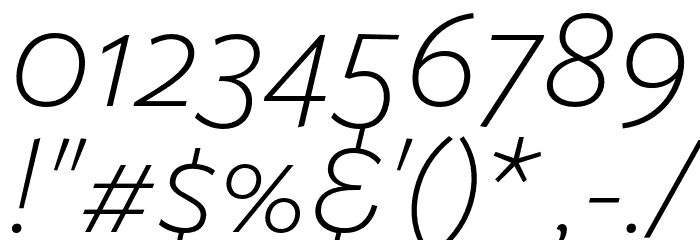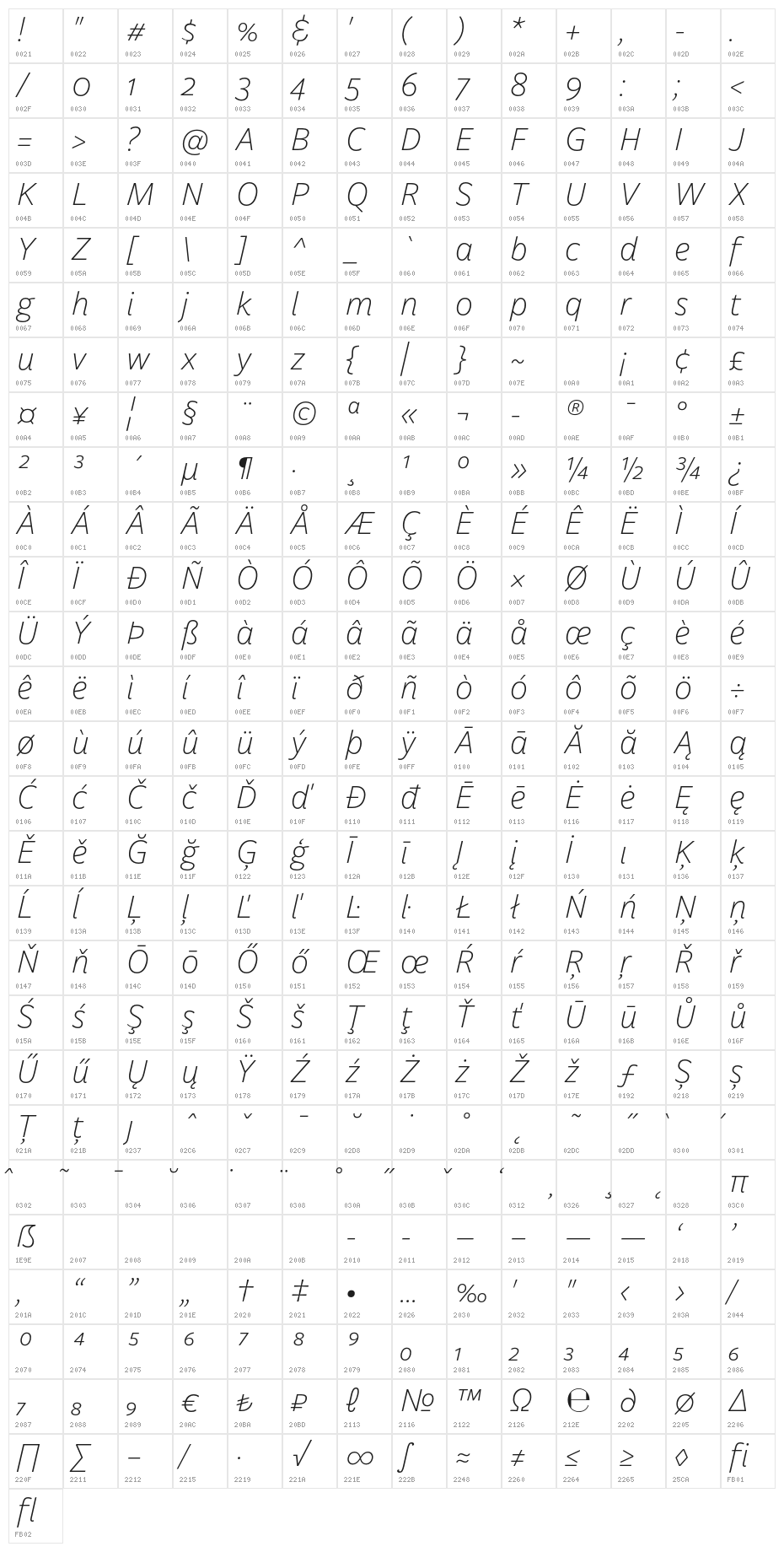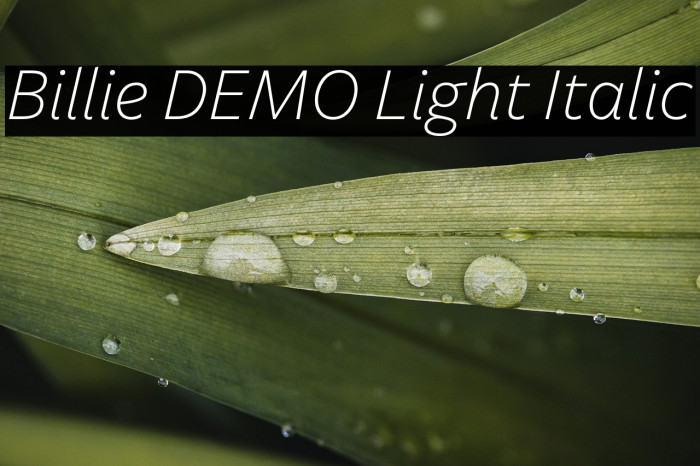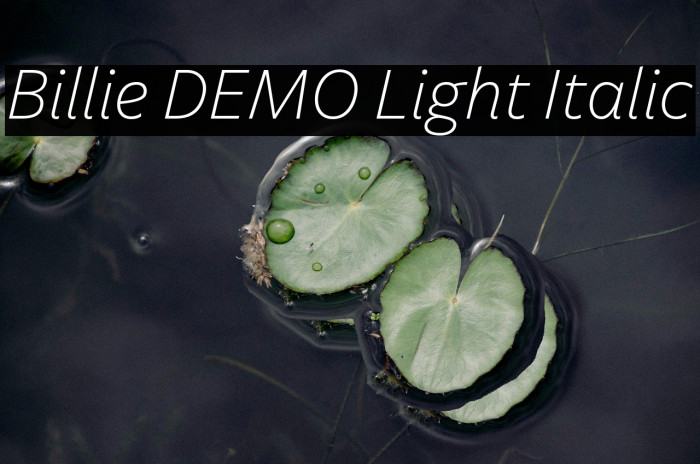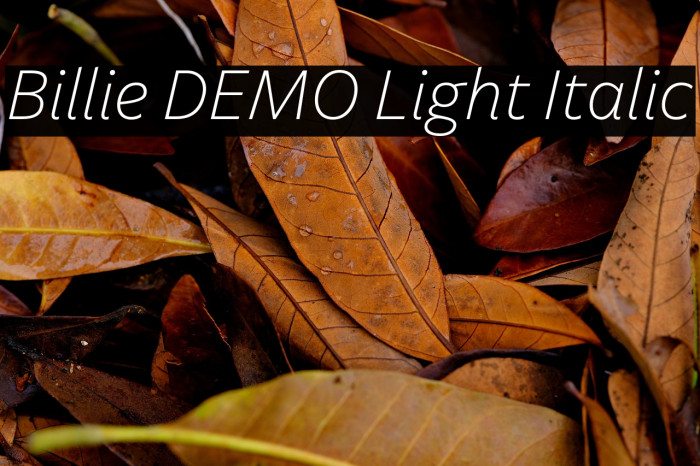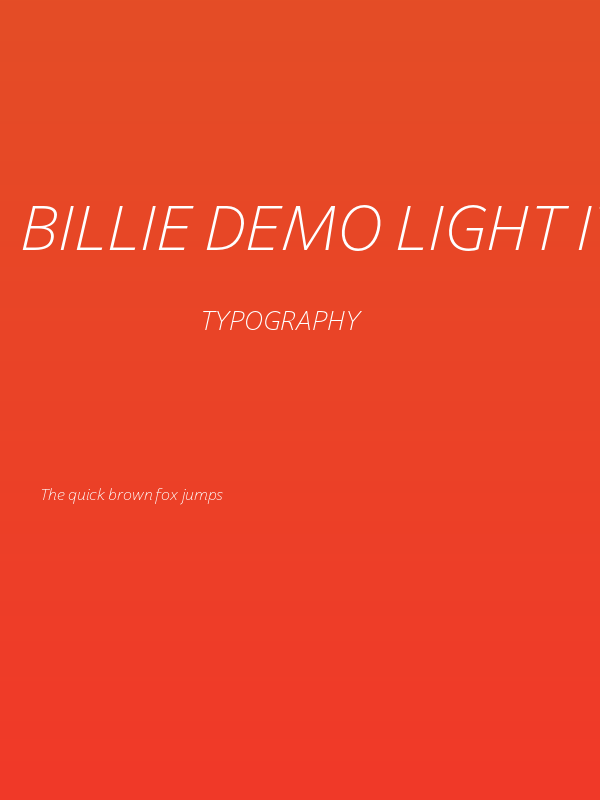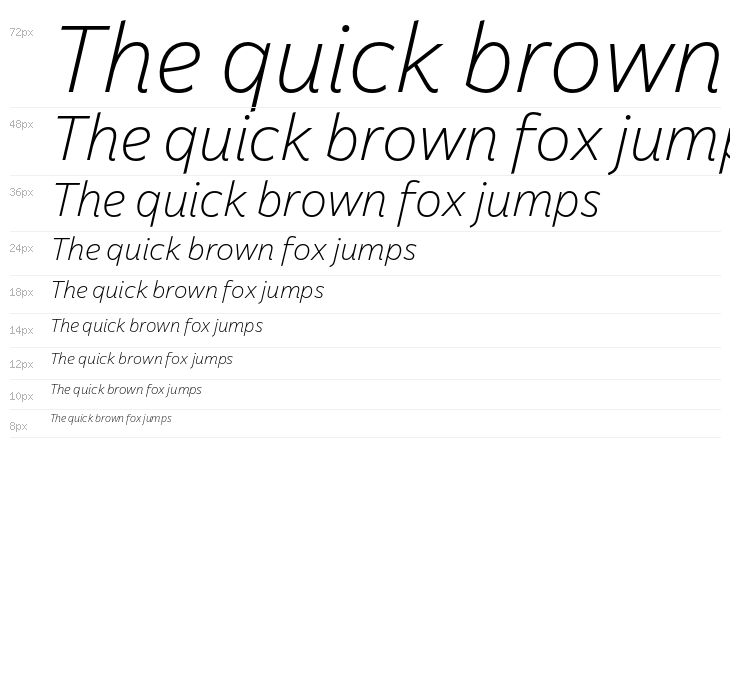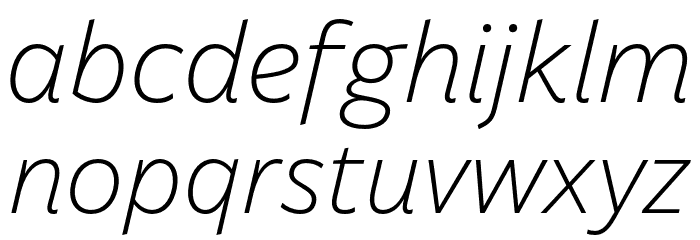
Billie DEMO Light Italic Font
Billie DEMO Light Italic Description
This font exhibits a sleek, modern design with a light weight and italic style. The characters are elegantly crafted with smooth curves and a slight slant, giving it a sophisticated and contemporary appearance. The uppercase and lowercase letters maintain a consistent flow, while the numerals and special characters complement the overall aesthetic. The font's clean lines and minimalistic approach make it versatile for various design applications.